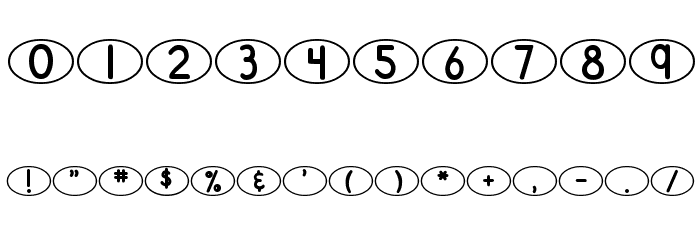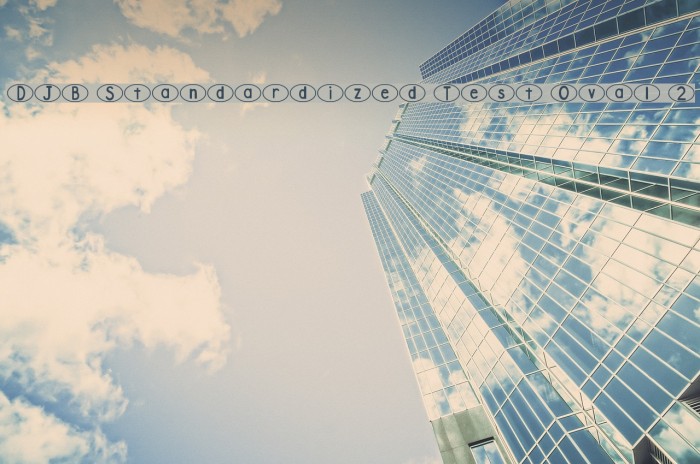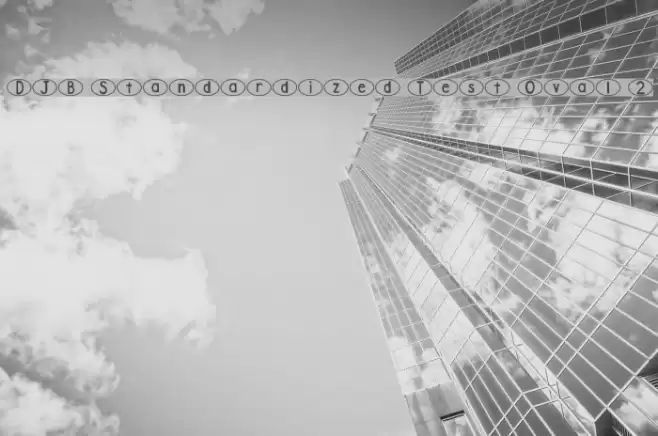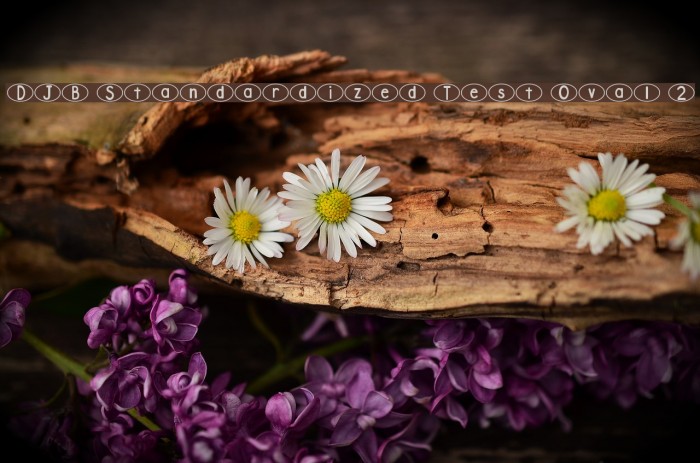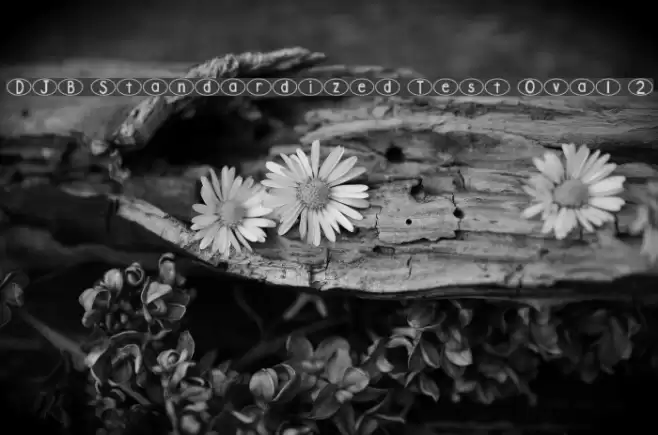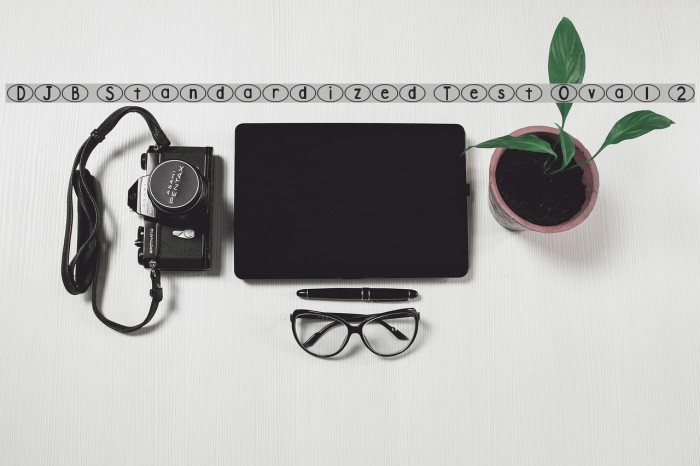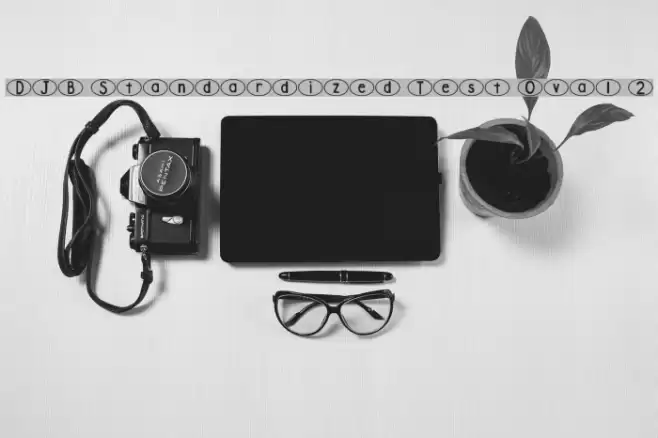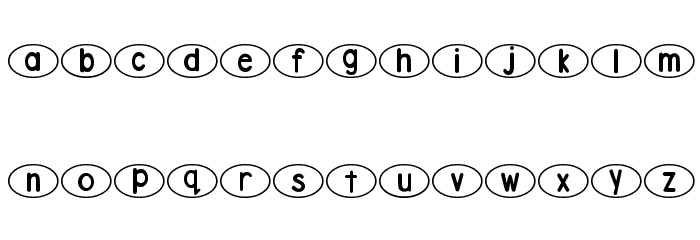
DJB Standardized Test Oval 2 Font
DJB Standardized Test Oval 2 Description
This playful and unique font features characters enclosed within oval shapes, giving it a distinctive and whimsical appearance. The letters are bold and clear, making them easy to read while maintaining a fun and engaging style. Each character is centered within its oval, creating a uniform and structured look. The font includes a full set of uppercase and lowercase letters, numbers, and a variety of special characters, all maintaining the same oval enclosure. This design is reminiscent of standardized test answer sheets, adding a nostalgic and educational touch.
| Overall Style | Playful, Educational |
| Use Case | Headlines, Logos, Educational materials |
| Proposed Projects | Ideal for educational materials, children's books, playful branding, and creative projects that require a unique and engaging typeface. |